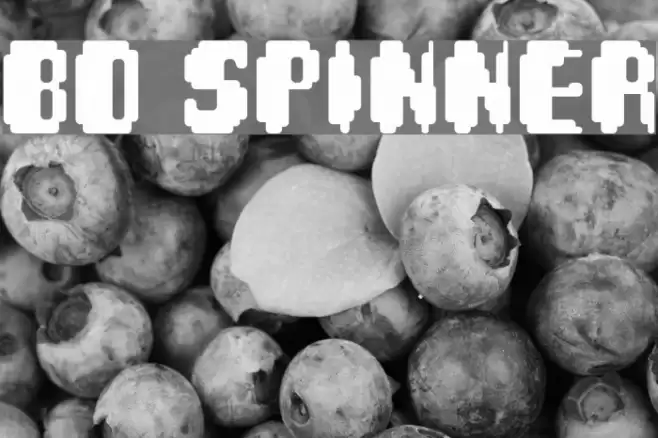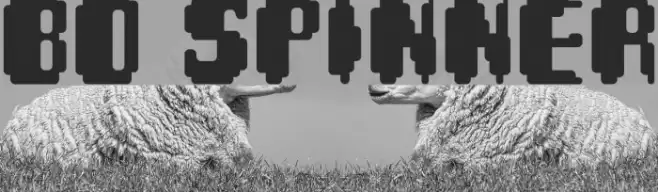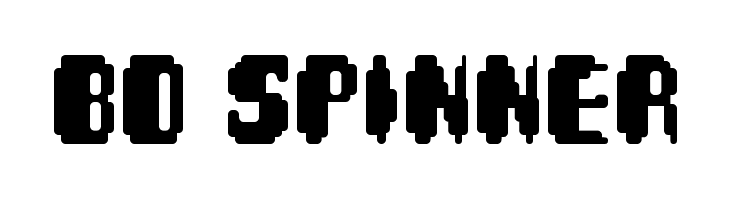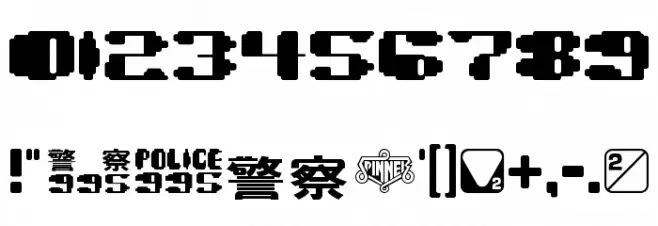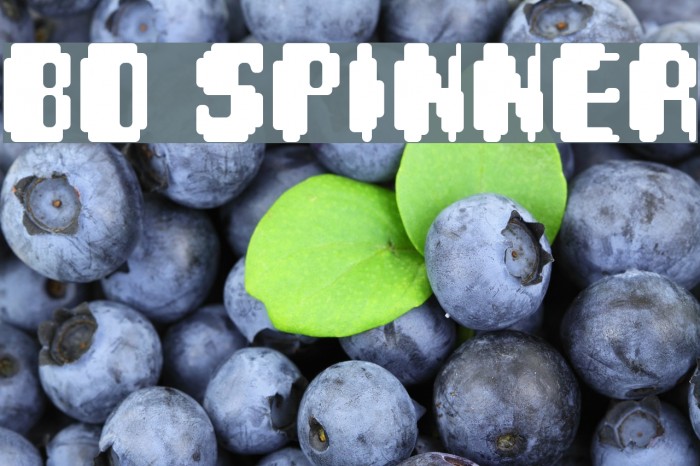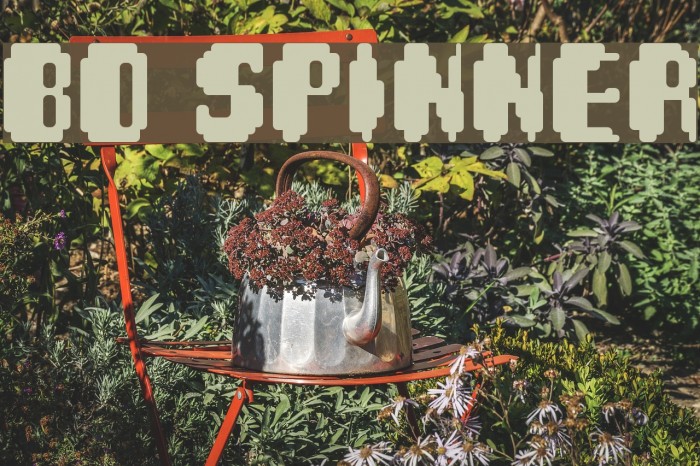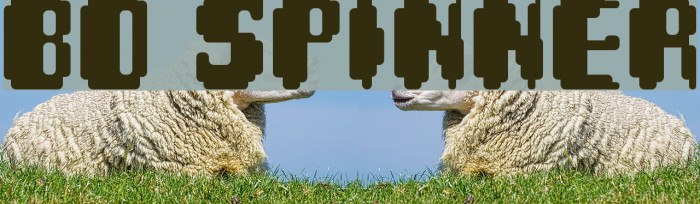
BD Spinner Font
BD Spinner Description
This font features a bold and striking design with a unique, blocky appearance. Each character is crafted with a distinct, pixelated style that gives it a modern and digital feel. The uppercase letters are uniform in height, creating a cohesive look across the alphabet. The numbers and special characters maintain the same boldness, ensuring consistency throughout. This font's design is reminiscent of retro video game aesthetics, making it ideal for projects that aim to capture a sense of nostalgia or digital innovation.
A bold, pixelated font with a retro digital aesthetic from Uncategorized fonts.
- Proposed Projects: Ideal for video game design, digital art projects, retro-themed posters, and tech-related branding.